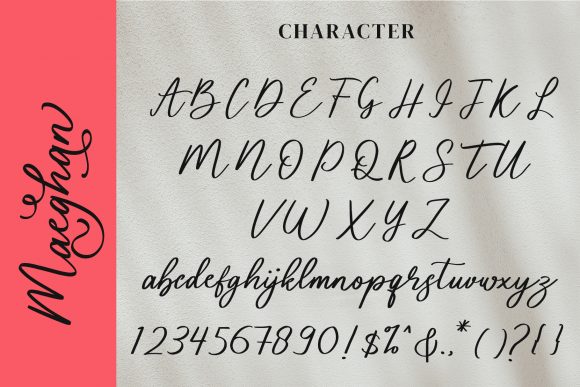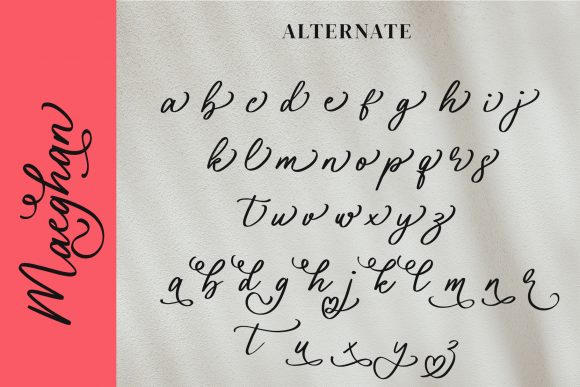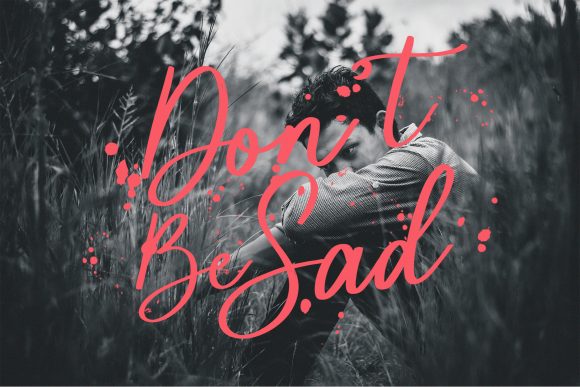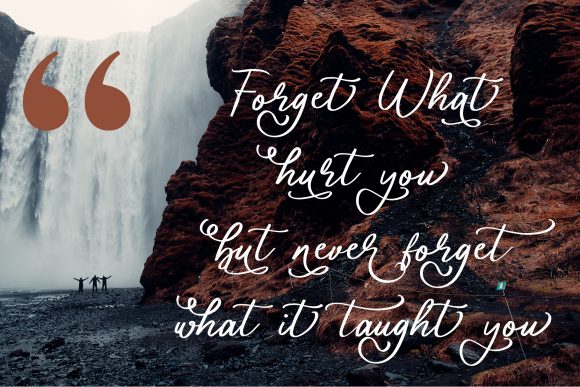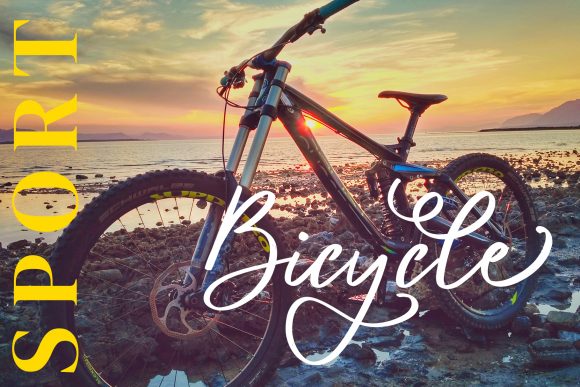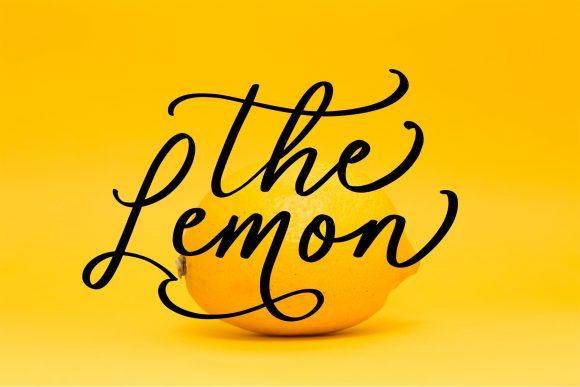
Introduction to Maeghan Font
Have you ever been working on a creative project, pouring your heart and soul into it, only to feel like something’s missing? That’s when I discovered the Maeghan Font, and it completely transformed my design process. With its flowing, handwritten style and stunning impact, this font adds a luxury spark to any project, elevating it to the next level.
As a designer, I can attest to the value of having high-quality design resources like the Maeghan Font. It’s not just about aesthetics; it’s about creating a cohesive and professional look that communicates your message effectively. With its PUA encoding, you can access all the amazing glyphs and ligatures with ease, making it a seamless addition to your design workflow.
Key Features of Maeghan Font
- High-quality design for creative projects, ideal as a design resource for artists and designers.
- Includes a range of weights and styles, allowing for versatility in design projects.
- Designed with a unique and elegant aesthetic, perfect for adding a touch of sophistication to any creative project.
- Resolution-independent, ensuring that the font remains crisp and clear at any size or resolution.
Honest Review: Maeghan Font
I recently had the chance to work with the Maeghan Font, and I must say, it’s been a game-changer for my creative projects. As a designer, I’m always on the lookout for high-quality design resources that can elevate my work, and the Maeghan Font definitely delivers.
- ✨ Beautiful, elegant script design that adds a touch of sophistication to any project
- ✨ Highly customizable with a range of font styles and sizes to suit your needs
Overall, I’m really impressed with the Maeghan Font. It’s a fantastic design resource that’s perfect for any creative project. With its beautiful design and high level of customization, it’s a must-have for any designer looking to take their work to the next level.
The Maeghan Font is a high-quality design resource ideal for creative projects. It offers a transparent background, making it perfect for adding a touch of elegance to your designs.
To get the most out of the Maeghan Font, use it in combination with other design elements to create a cohesive and visually appealing design.
The Maeghan Font is ideal for use in a variety of creative projects, including:
- Birthday and holiday cards